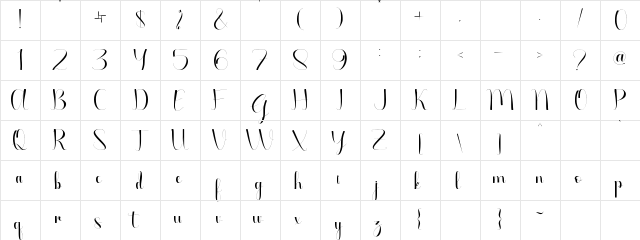
Ageitha Regular
| Designer | Alif Ryan Zulfikar |
Design Context for Ageitha Typeface
Ageitha is a composed and adaptable typeface that performs quietly and consistently across a wide range of design contexts.